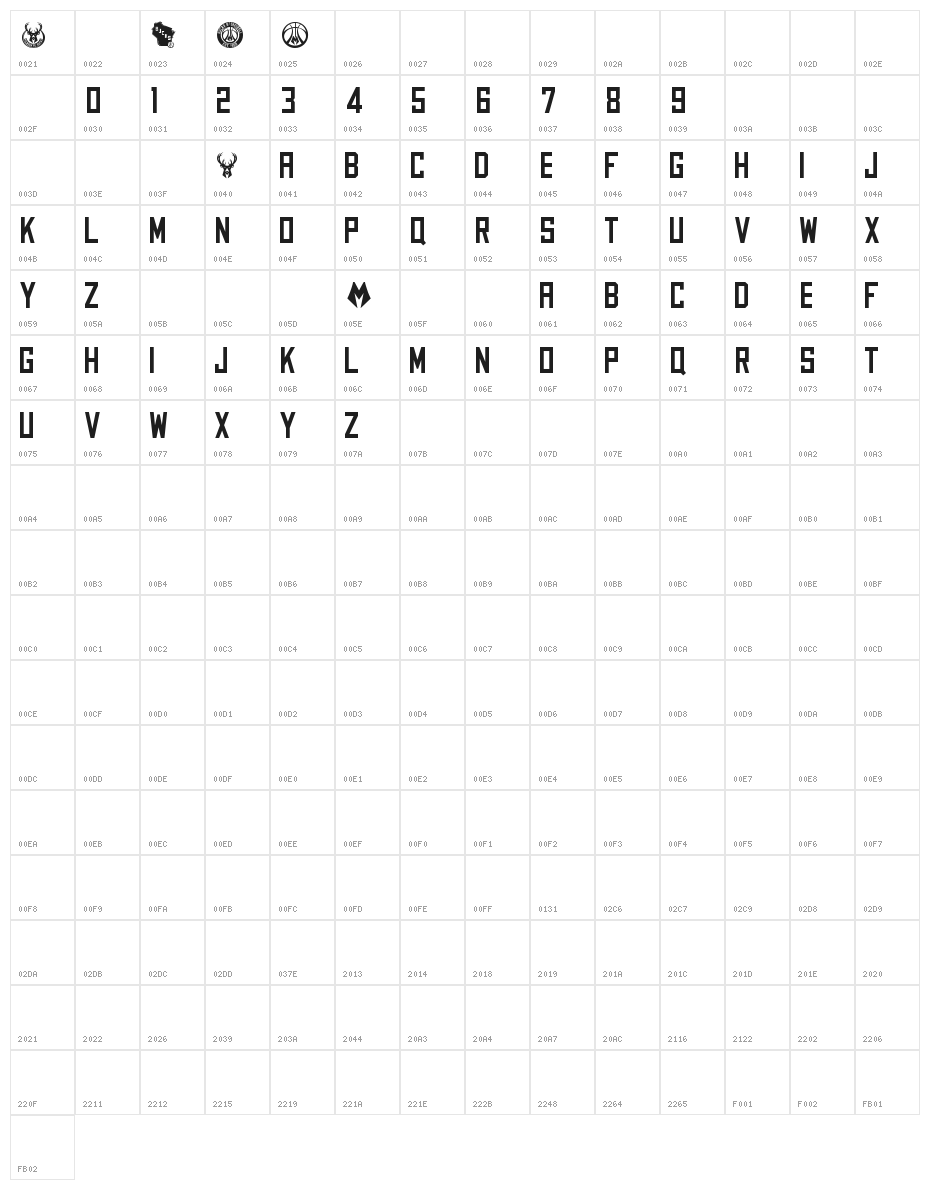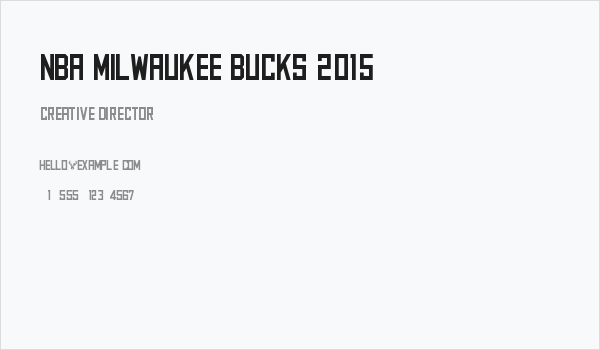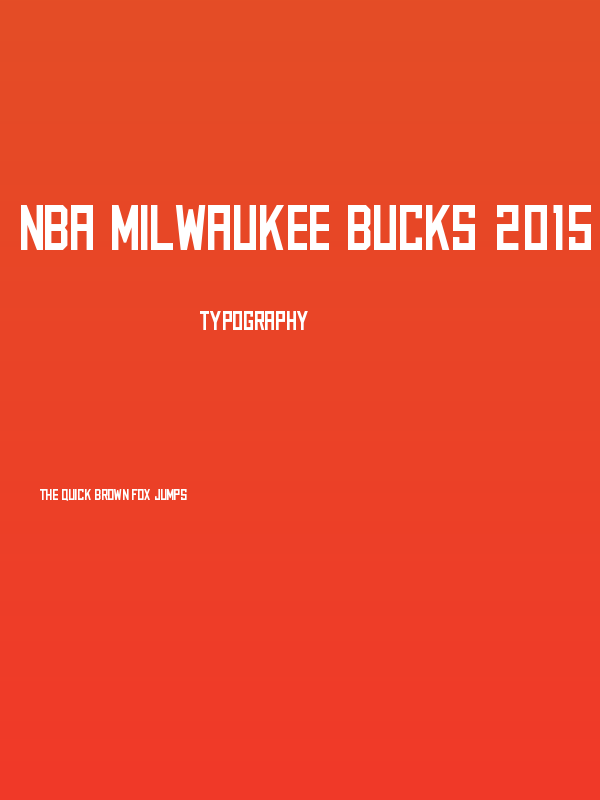
NBA Milwaukee Bucks 2015 Font
NBA Milwaukee Bucks 2015 Description
This font features a bold, geometric style with sharp angles and a strong presence. The characters are uppercase and numerals, showcasing a modern and athletic aesthetic. The design is clean and impactful, making it ideal for sports-related branding. The uniformity in stroke width and the angular cuts give it a distinct, aggressive look, suitable for conveying strength and dynamism. The font's structure is consistent, with each letter maintaining a similar height and width, contributing to a cohesive appearance.
| Use Case | Logos, Headlines |
| Proposed Projects | Ideal for sports team branding, athletic apparel, and dynamic logo designs. |